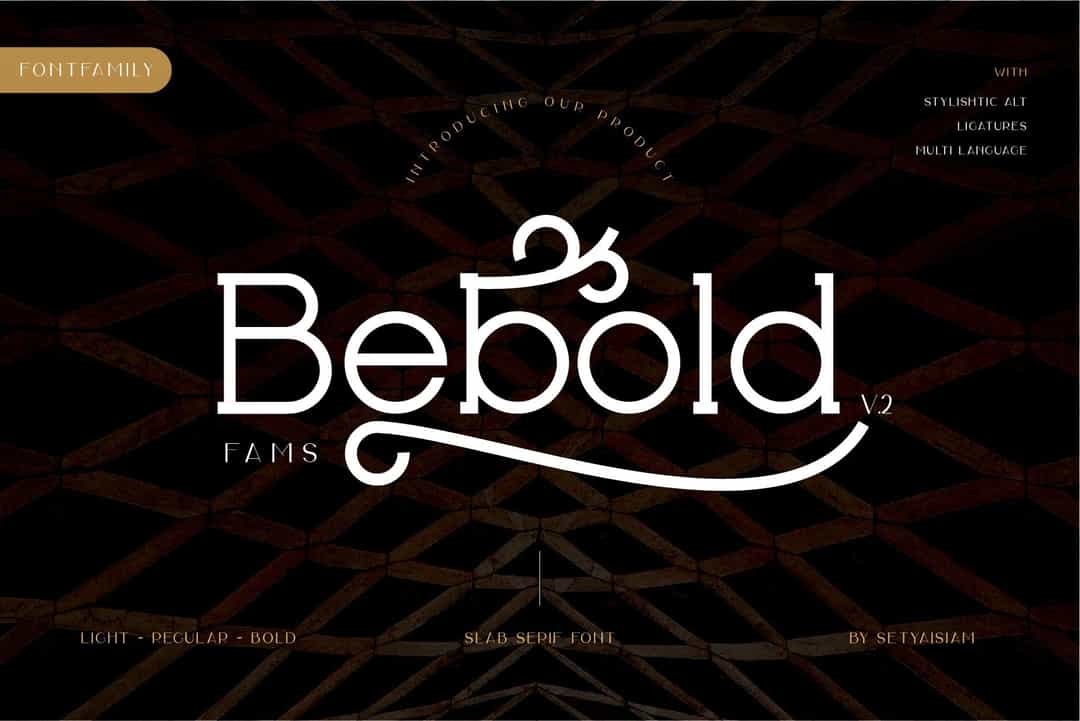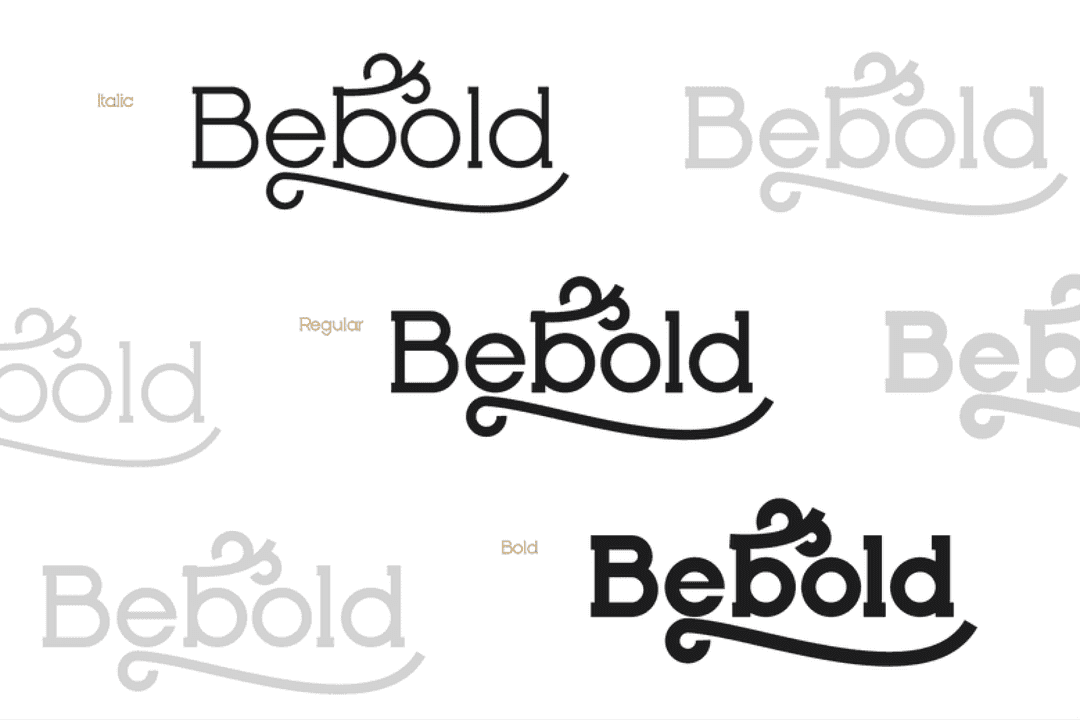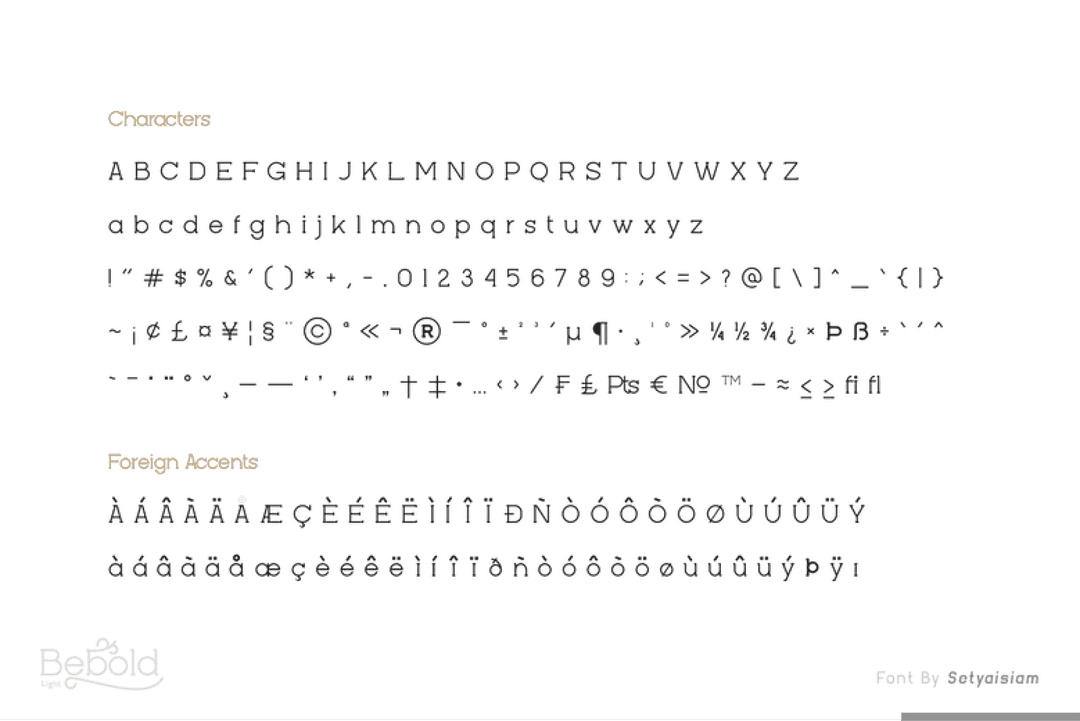
Bebold is an elegant slab serif font designed with style in mind. No matter your subject matter or theme, Bebold makes an incredible addition to your font library as its captivating appearance will complement and complete any font collection.